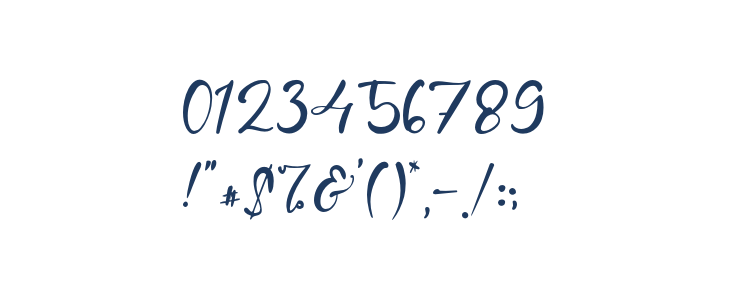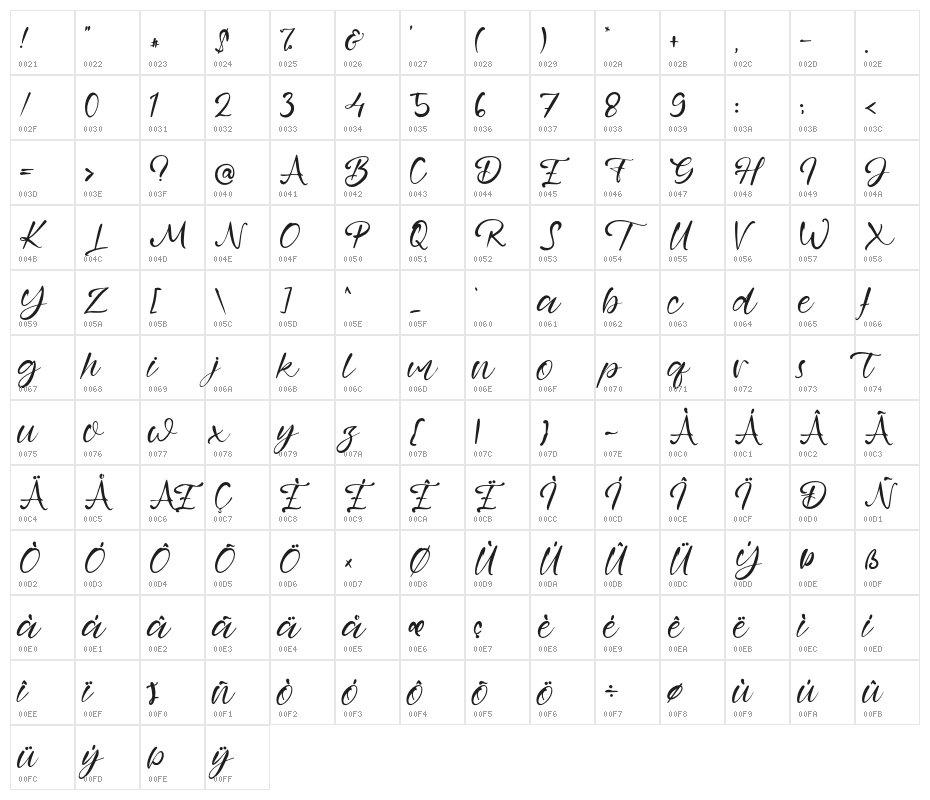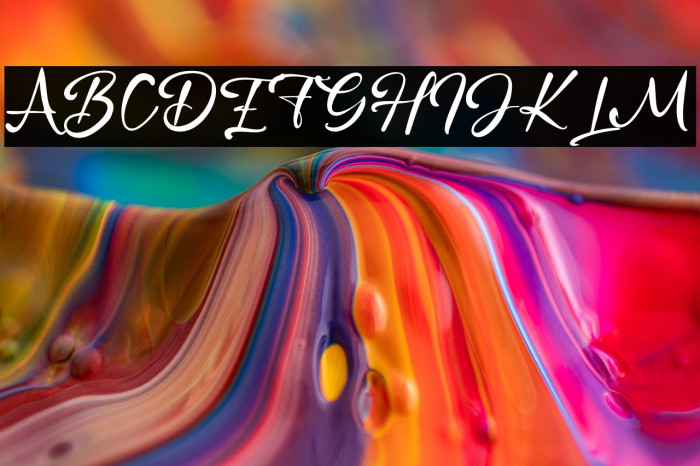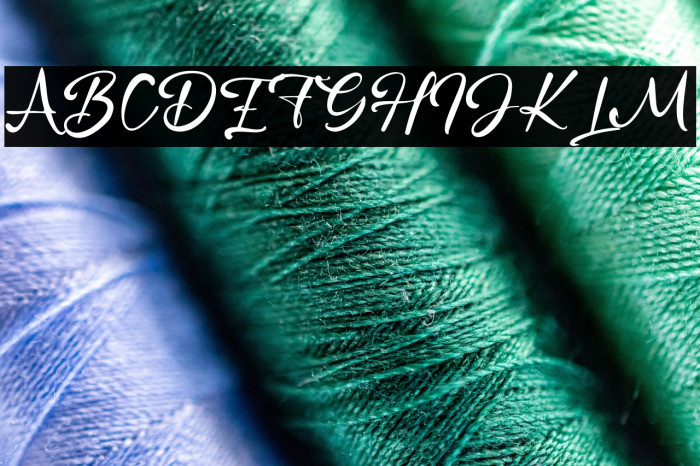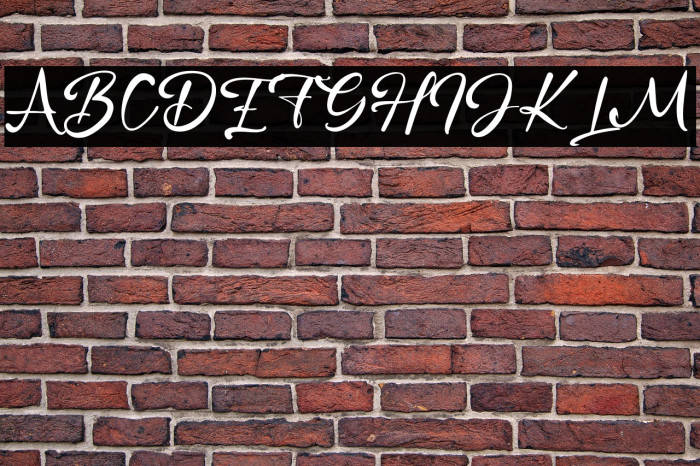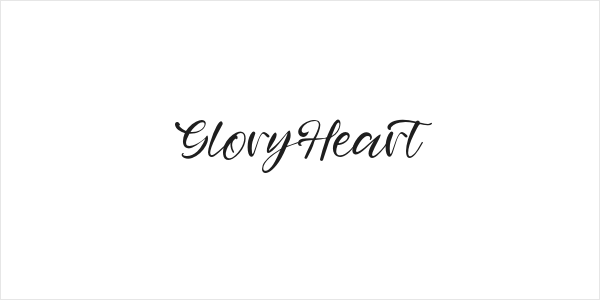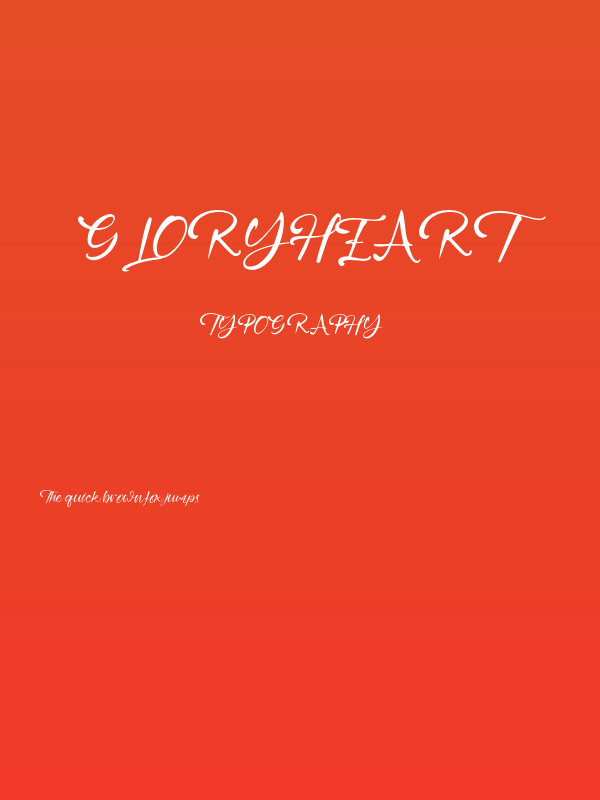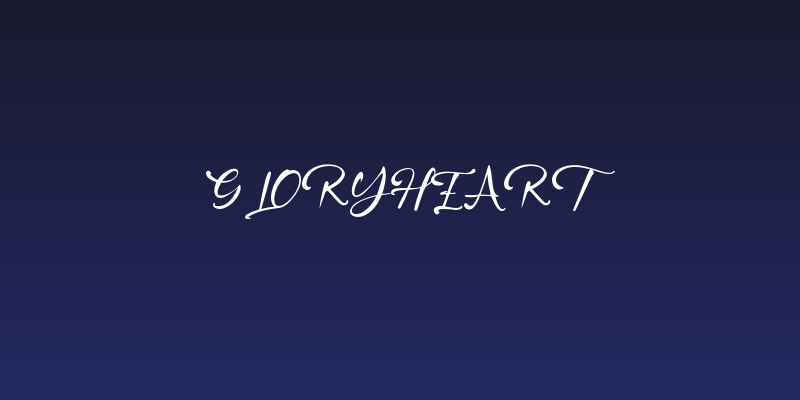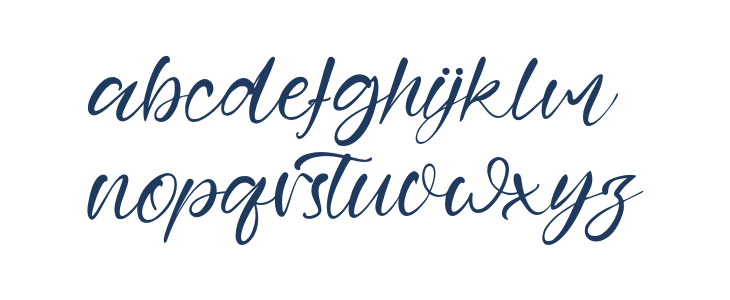
GloryHeart Font
GloryHeart Description
This font features a flowing, cursive style with elegant, sweeping lines and a handwritten appearance. The uppercase letters are tall and graceful, with distinctive loops and flourishes that add a touch of sophistication. The lowercase letters maintain a consistent style, with smooth connections and a fluid motion that enhances readability. Numbers and special characters are designed to match the overall aesthetic, providing a cohesive look. The font's artistic flair makes it suitable for creative projects where a personal touch is desired.